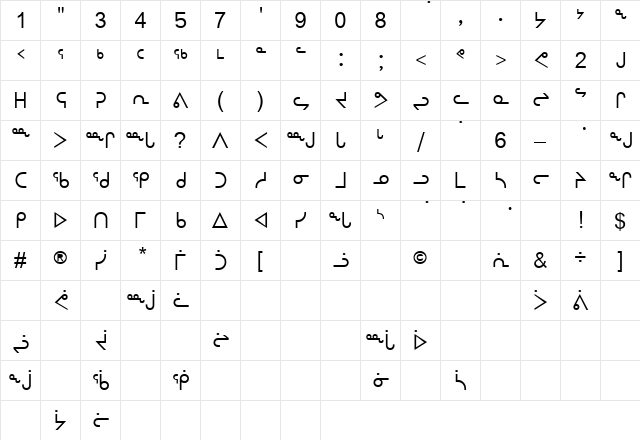
nunacom Regular
Design Context for nunacom Typeface
nunacom is a composed and adaptable typeface that performs quietly and consistently across a wide range of design contexts.